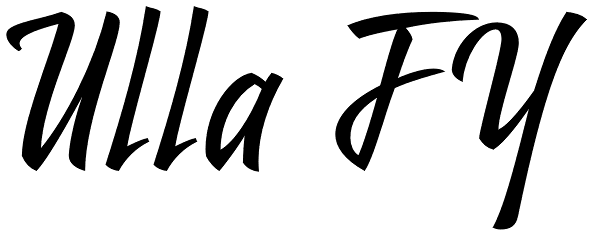
Ulla FY
Ulla FY is a sexy vintage font script designed with a brush and inspired by storefronts sign paintings. Some design charasteristics like uppercases generous caligraphic loops and lowercases spiky outstrokes give Ulla FY a sensual and dynamic look...
Ulla FY Font